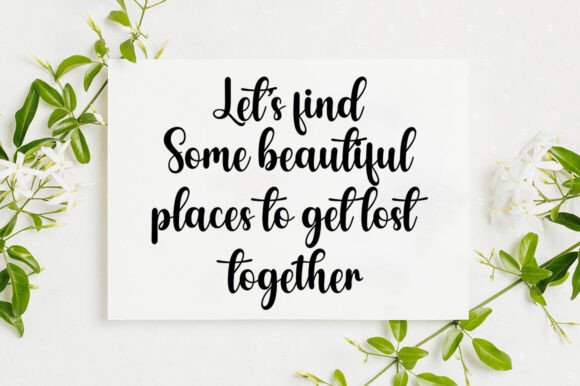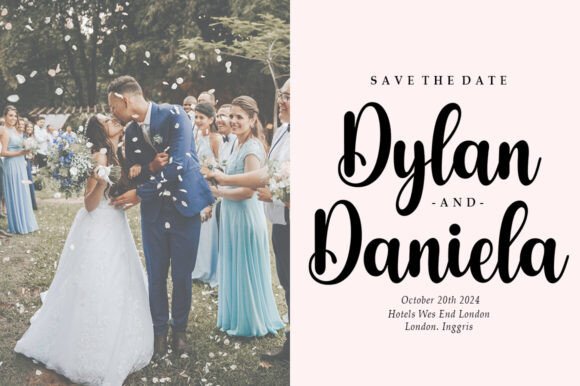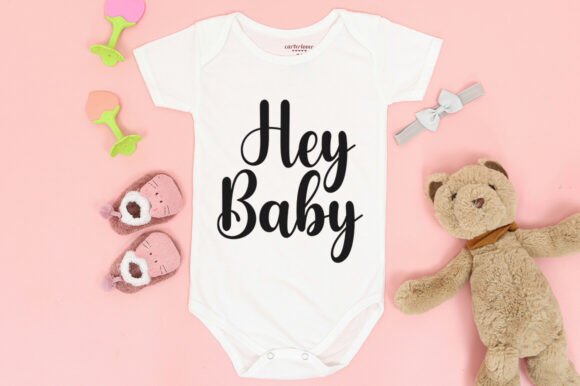
Black Simple Font
About the Black Simple Font
Discover the charm of Black Simple Font. This font is a perfect blend of modern aesthetics and classic appeal. Black Simple is a stylish and very fancy handwritten font. This font looks stunning on wedding invitations, thank you cards, quotes, greeting cards, logos, business cards, and every other design that needs a handwritten touch.
Black Simple’s elegant yet casual handwritten style is ideal for projects requiring a touch of personal warmth. It excels in headlines, short text blocks on branding materials like logos and business cards, and works well for short quotes or taglines on posters or social media graphics. Avoid using it for body text or lengthy paragraphs, as its stylistic nature compromises readability in larger quantities.
Its inherent personality is sophisticated yet approachable. This makes it suitable for brands conveying quality and craftsmanship, such as artisan goods, boutique hotels, or high-end stationery. Consider pairing it with a clean sans-serif like Lato or Open Sans for a contemporary contrast, or a classic serif such as Garamond or Playfair Display for a more traditional feel.
For a bolder look, a geometric sans-serif like Montserrat can add modern edge. Alternatively, a delicate script font can enhance the handwritten feel, offering a harmonious yet varied aesthetic.